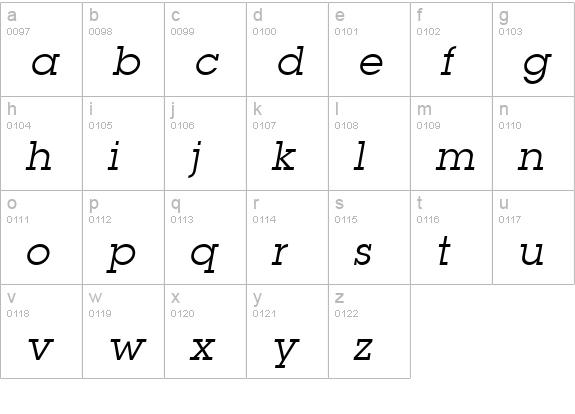
Torrent Graphic SSi Italic Font Details
Torrent Graphic SSi Italic is a distinctive, italic variant in the Torrent typeface family \xE2\x80\x94 well suited to design and typography projects.
Torrent Graphic SSi Italic is a visually stunning font that exudes a perfect balance of elegance and modernity. Its italicized design adds a touch of sophistication to any project, making it ideal for high-end graphic design, advertising, and creative endeavors. This font features captivating letterforms that effortlessly blend sharp angles with smooth curves, creating a harmonious aesthetic that is bound to captivate the eyes of viewers. With its bold strokes and unique letter shapes, Torrent Graphic SSi Italic stands out among other typefaces, making it an excellent choice for headlines, logos, and branding materials. One of the most remarkable aspects of Torrent Graphic SSi Italic is that it is freely available to download at FontsMarket.com. This means that designers, creatives, and enthusiasts alike can enjoy the beauty and versatility of this font without any cost. The availability of a high-quality font like Torrent Graphic SSi Italic for free is an invaluable resource, allowing designers to explore their creativity without any limitations. Whether you are working on a personal project or a professional endeavor, Torrent Graphic SSi Italic is a font that can elevate your designs to new heights. Its versatility is showcased in its ability to adapt to various design styles and contexts, making it suitable for both print and digital mediums. With its distinctive italicized style, Torrent Graphic SSi Italic adds a level of sophistication and visual interest to any composition. Its sleek and modern design, combined with its freely available nature, makes it a must-have font for designers and typographers seeking to create impactful and memorable visuals. Download Torrent Graphic SSi Italic today from FontsMarket.com and unlock the potential of this remarkable font to bring your creative visions to life.